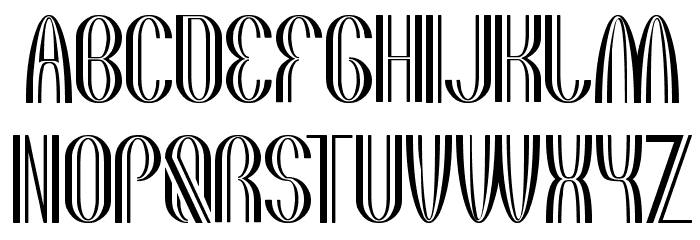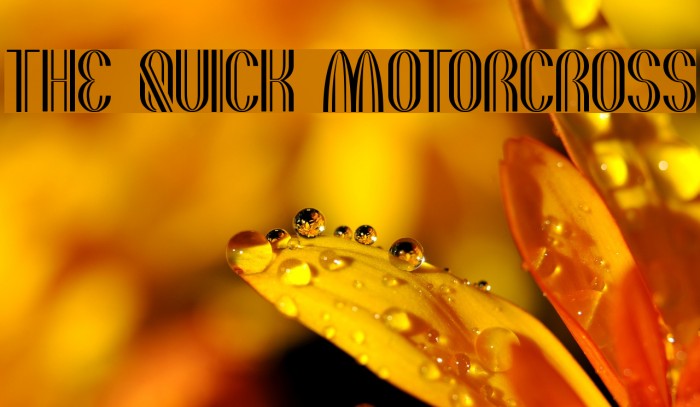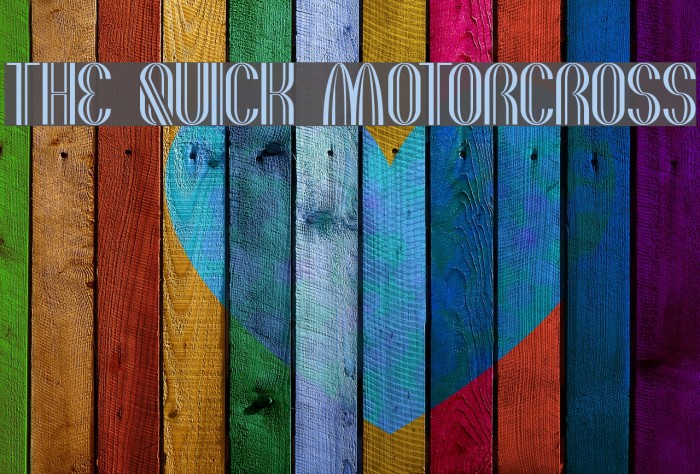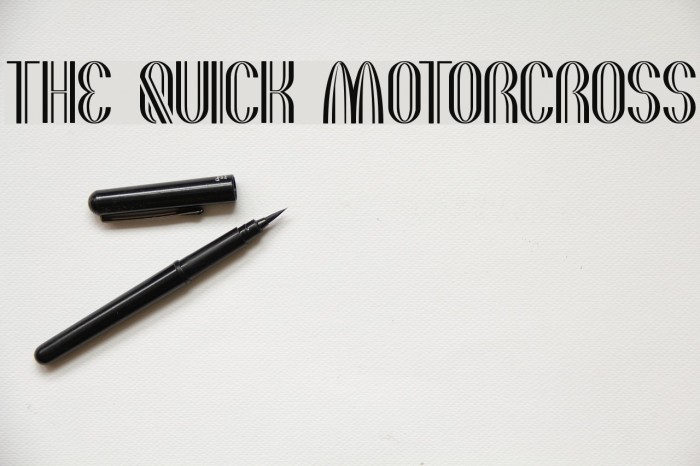
the quick motorcross Font
This font features a unique and bold design with a distinct art deco influence. The characters are composed of multiple parallel lines that create a sense of movement and rhythm. The uppercase letters are particularly striking, with a combination of curves and straight lines that give them a dynamic appearance. The overall look is both modern and retro, making it suitable for projects that require a touch of vintage flair. The font's intricate design makes it ideal for headlines and display purposes, where it can be appreciated in larger sizes.
A bold, art deco-inspired font with dynamic, multi-line characters.
- Proposed Projects: Ideal for posters, branding, and editorial design where a vintage yet modern aesthetic is desired.
- Overall Style: Modern, Vintage